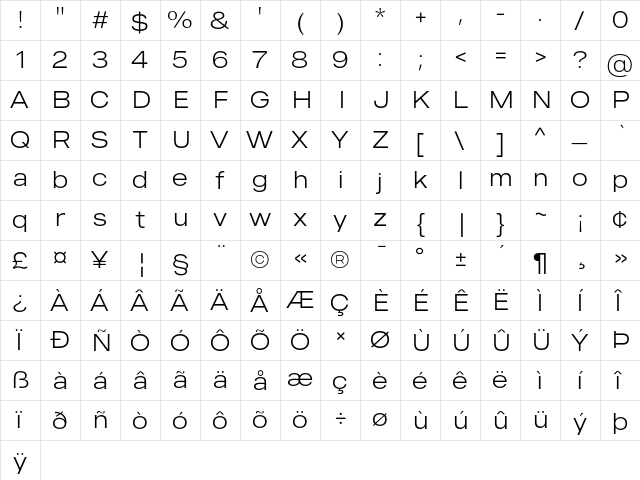
MADE Outer Sans Thin
Design Context for MADE Outer Sans Typeface
MADE Outer Sans offers clean, dependable letterforms without strong stylistic allegiance, making it a practical choice for designers who need flexibility. The delicate stroke weight brings airiness and refinement to layouts.